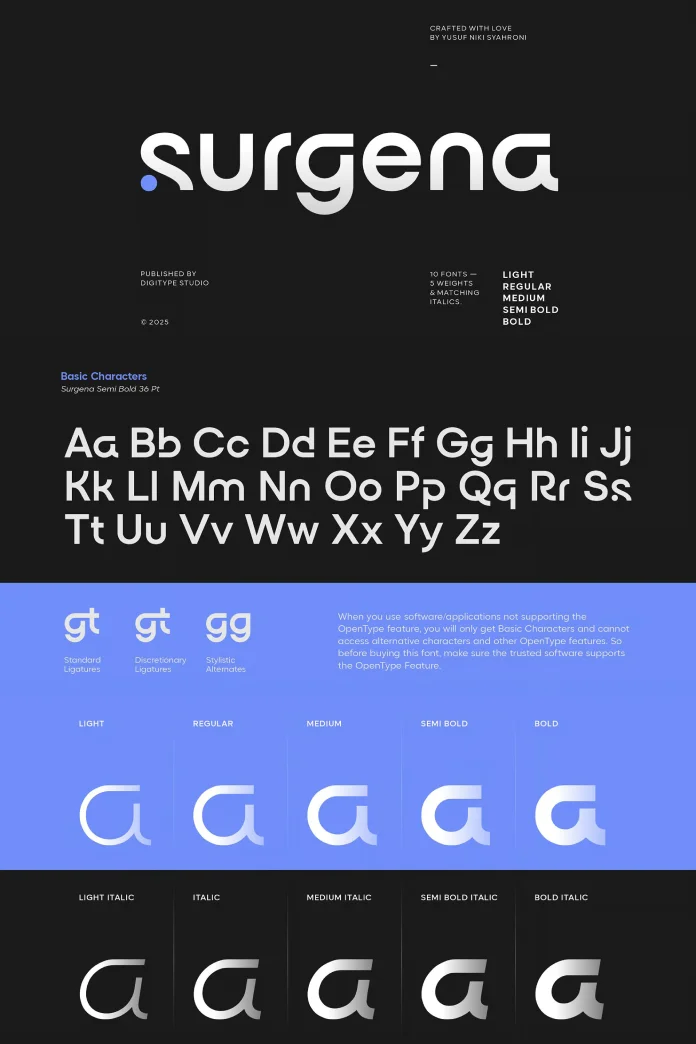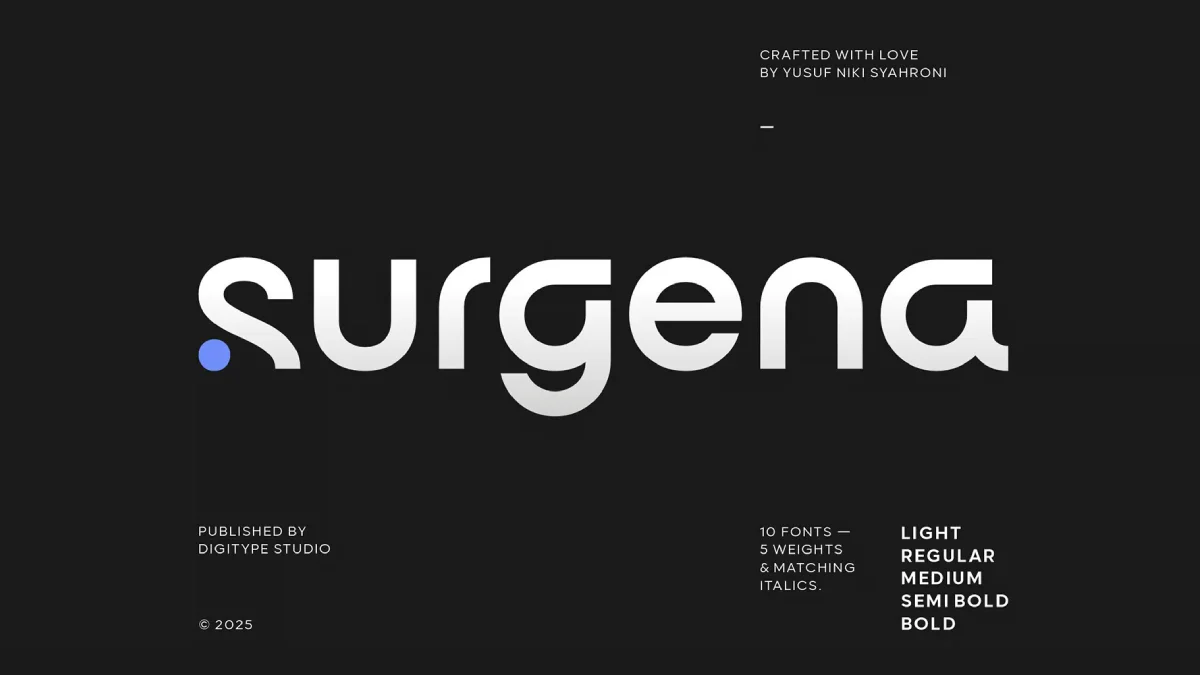
Surgena Font Family: Your Next Design Obsession? Unpacking Modern Elegance
Today, we’re going to explore a new typographic gem: the Surgena font family from Digitype Studio. You might find yourself wondering how a collection of letterforms can evoke such a distinct personality. Well, prepare to be intrigued. The Surgena font family isn’t just another sans-serif; it’s a statement. It’s a carefully crafted tool designed by Yusuf Niky Syahroni, and it’s been quietly making waves among designers who crave that perfect balance of minimalism and impact. What is it about these geometric shapes and clean lines that captures the imagination? Let’s find out together.
The Architect Behind the Aesthetics: Yusuf Niky Syahroni and Digitype Studio
Before we get lost in the beautiful curves and sharp angles of the Surgena font family, let’s give credit where it’s due. Yusuf Niky Syahroni, the creative force at Digitype Studio, is the designer behind this modern marvel. Digitype Studio has a reputation for producing high-quality, contemporary typefaces, and Surgena is a shining example of their design philosophy. It’s clear that a significant amount of thought and expertise goes into each font they release. You can almost feel the passion for typography in every character, can’t you? This dedication translates into fonts that are not only visually appealing but also incredibly functional.
What Exactly is the Surgena Font Family? A Closer Look
So, what makes the Surgena font family so special? At its core, Surgena is a modern sans-serif font. This means it lacks the small strokes (serifs) at the ends of characters, giving it a clean, contemporary look. But it’s more than just “modern.” It’s a typeface that masterfully combines minimalist elegance with clear, precise geometric forms. Think about that for a moment. How often do you find a font that feels both gracefully simple and mathematically exact?
The design boasts wonderfully balanced proportions. Each letterform sits comfortably next to its companions. Moreover, refined details are peppered throughout the character set. These aren’t overtly flashy elements, but subtle touches that elevate the overall aesthetic. These details ensure that while the font is minimalist, it’s far from bland. It has a quiet confidence, a sophisticated whisper rather than a shout.
The Professional, Innovative, and Dynamic Vibe of Surgena
When you look at designs using the Surgena font family, a few words likely spring to mind: professional, innovative, and dynamic. It inherently projects an image of competence and forward-thinking. This makes it an exceptional choice for businesses and projects aiming to appear current and sophisticated.
Imagine it on a sleek tech company’s website, or gracing the pages of a cutting-edge design magazine. The clean lines lend themselves to a sense of order and precision, crucial for conveying professionalism. Simultaneously, its geometric underpinnings and modern styling give it an innovative flair. It doesn’t feel stuck in the past; it feels like it’s leading the charge. This dynamism makes the Surgena font family incredibly versatile, capable of adapting to various contexts while maintaining its core identity.
Where Surgena Shines: Applications for a Modern Age
One of the most exciting aspects of the Surgena font family is its sheer versatility. This isn’t a font you’ll use once and then forget. It’s a workhorse, ready to tackle a multitude of design challenges.
Branding with the Surgena Font Family
For branding projects, Surgena is a dream. Are you trying to craft a memorable logo or a cohesive brand identity? The font’s clarity and modern appeal make it an excellent foundation. Whether you’re designing for a startup that wants to appear disruptive or an established company looking to refresh its image, the Surgena font family offers the tools to create something impactful and lasting. Its various weights allow for hierarchical importance in brand messaging, ensuring your core message stands out. Think about how the “Surgena font family for logo design” could provide that distinctive, yet legible, mark your client is searching for.
Editorial Excellence
In editorial design, readability is king, but style is queen. Surgena manages to serve both. Its well-crafted letterforms and generous spacing (which can be fine-tuned, of course) ensure a comfortable reading experience, even in longer text blocks. Yet, it doesn’t sacrifice aesthetic appeal. Headlines set in Surgena can be powerful and attention-grabbing, while body text remains clear and inviting. Imagine it in a stylish art journal or a minimalist lifestyle magazine – it just fits, doesn’t it?
Digital Design Dominance
The digital realm is another area where the Surgena font family truly excels. For websites, apps, and user interfaces, clarity and scalability are paramount. Surgena’s clean, geometric structure ensures it renders beautifully on screens of all sizes. From bold hero section titles to crisp UI elements, its modern aesthetic enhances the user experience. When considering “using Surgena font for web design,” you’re looking at a typeface that understands the demands of digital legibility and visual hierarchy.
Unpacking the Features: More Than Just Good Looks
The Surgena font family isn’t just a pretty face; it’s packed with features that empower designers. Let’s talk about what’s under the hood.
The Surgena font family represents a commitment to quality and contemporary design. It’s a typeface that doesn’t just follow trends but has the potential to help define them. So, the next time you’re embarking on a design project, consider Surgena. It might just be the missing piece that pulls everything together, giving your work that polished, professional, and undeniably modern edge. What will you create with it?